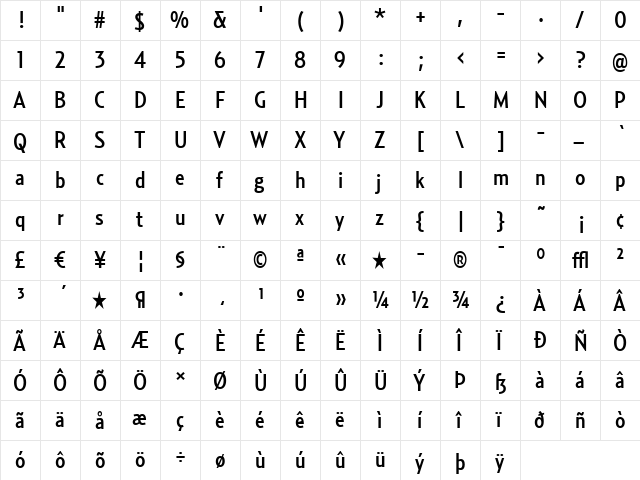
RelayCond-Medium Regular
| Designer | Cyrus Highsmith |
Design Context for RelayCond-Medium Typeface
RelayCond-Medium takes a measured approach to typography — its balanced proportions and neutral character make it a reliable workhorse for both digital and print work. The condensed width makes it efficient for tight spaces without sacrificing legibility.